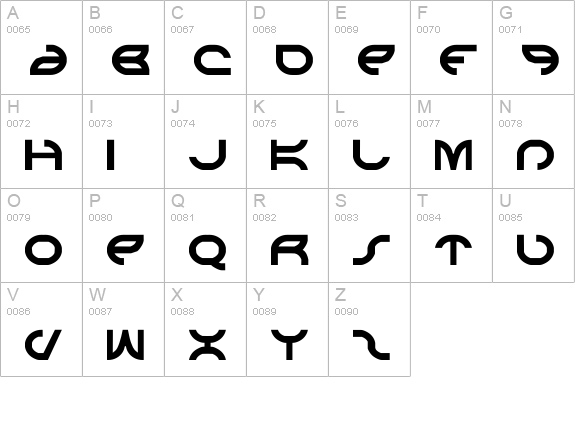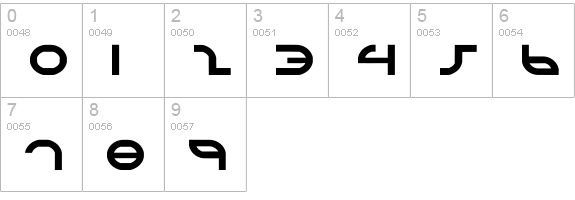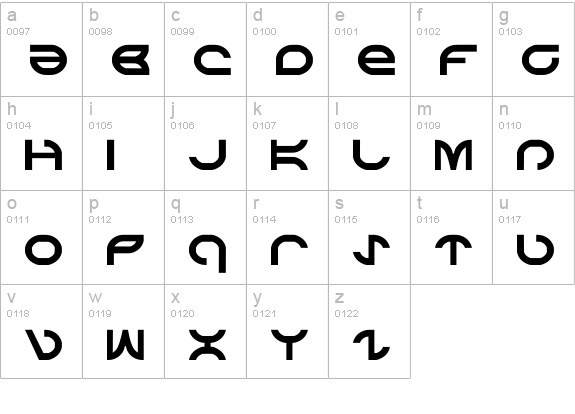
Aetherfox Font Details
Aetherfox font is a captivating and modern typeface that exudes elegance and sophistication. With its sleek lines and unique design, Aetherfox is perfect for adding a touch of class to any project. This versatile font is ideal for a wide range of uses, from branding and logos to packaging and web design. The best part? Aetherfox font is completely free to download at FontsMarket.com. Simply head over to the website and add this stunning font to your collection without spending a dime. Don't miss out on the opportunity to enhance your creative projects with the stylish and eye-catching Aetherfox font.